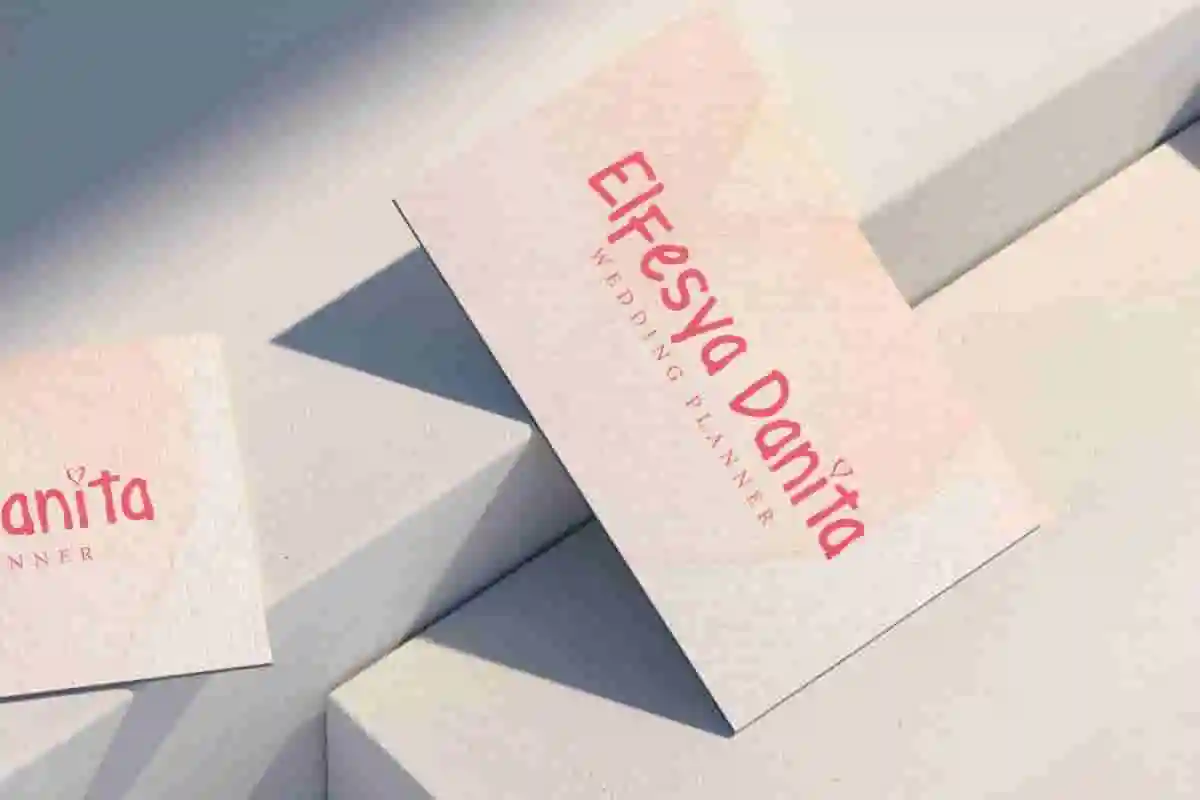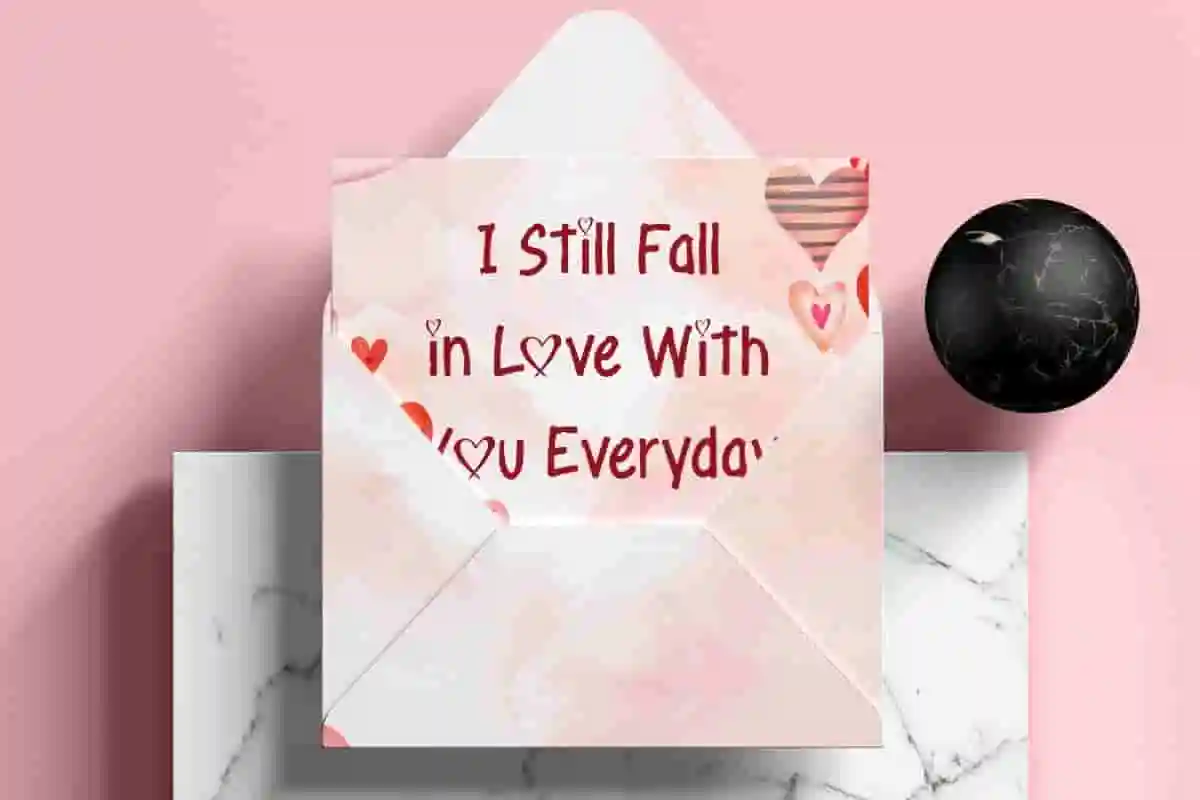
Busy Love Font
Busy Love Font is a beautiful brush display font by NoahType. This font is created using smooth brush strokes to produce lovely characters. It will be good for any designs, such as stationery, cover, brand image, custom design, invitation, label, marketing material, menu, poster, product packaging, quotes, signage, web, and many more!
Busy Love Font includes a complete set of Uppercase and Lowercase Basic Characters, Numerals, Punctuation, and Symbol. The characters of this font will give adorable look and also a perfect choice for many industries, such as fashion, cafe, accessories, advertising, event or festival, game, movie, printing, publishing, etc.